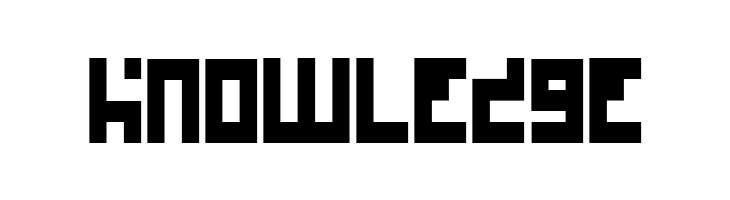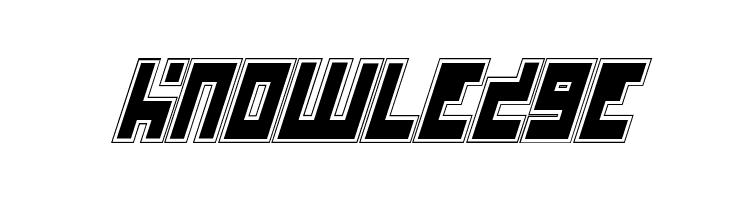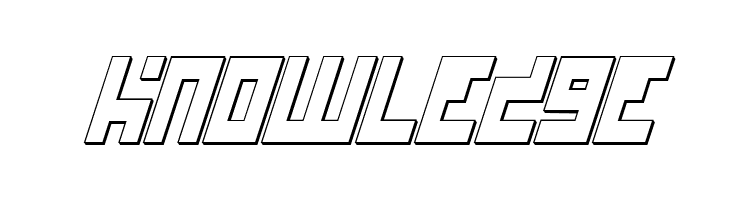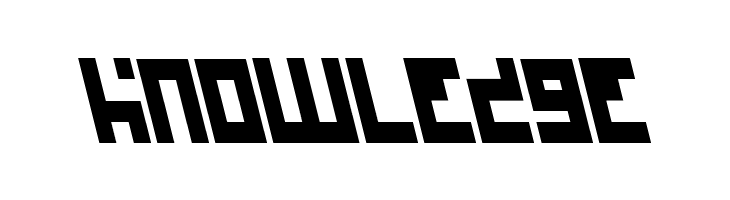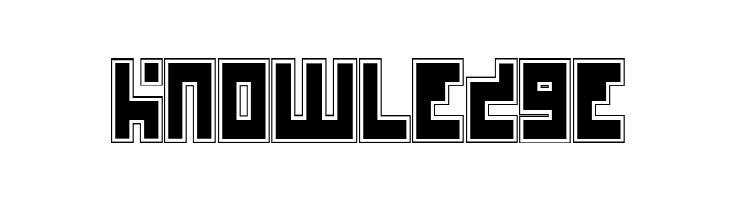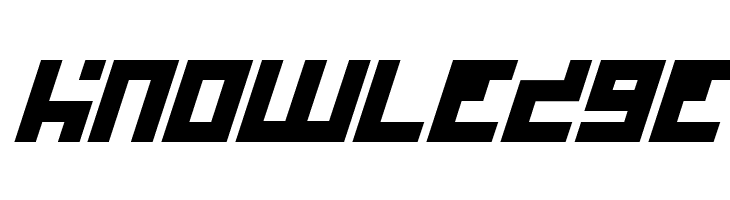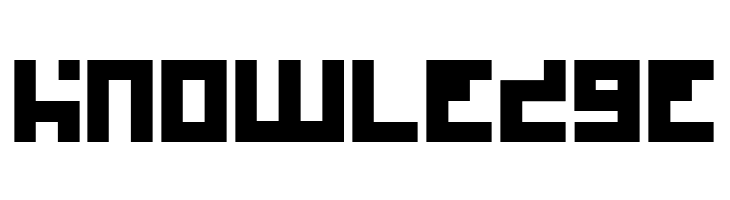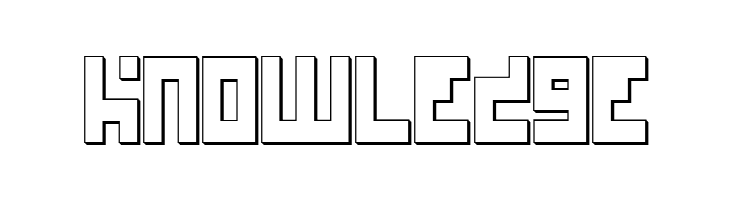
Ambyar Sobat Font
- Font: Ambyar Sobat
A bold, geometric font with a futuristic, digital aesthetic.
A bold, futuristic italic font with geometric outlines and a sci-fi aesthetic.
A bold, 3D italic font with a futuristic and geometric design.
A bold, geometric font with a futuristic, sci-fi style.
A bold, expanded, and italicized futuristic font with geometric, angular characters.
A bold, geometric font with a futuristic and digital style.
A bold, geometric 3D font with a futuristic digital appearance.